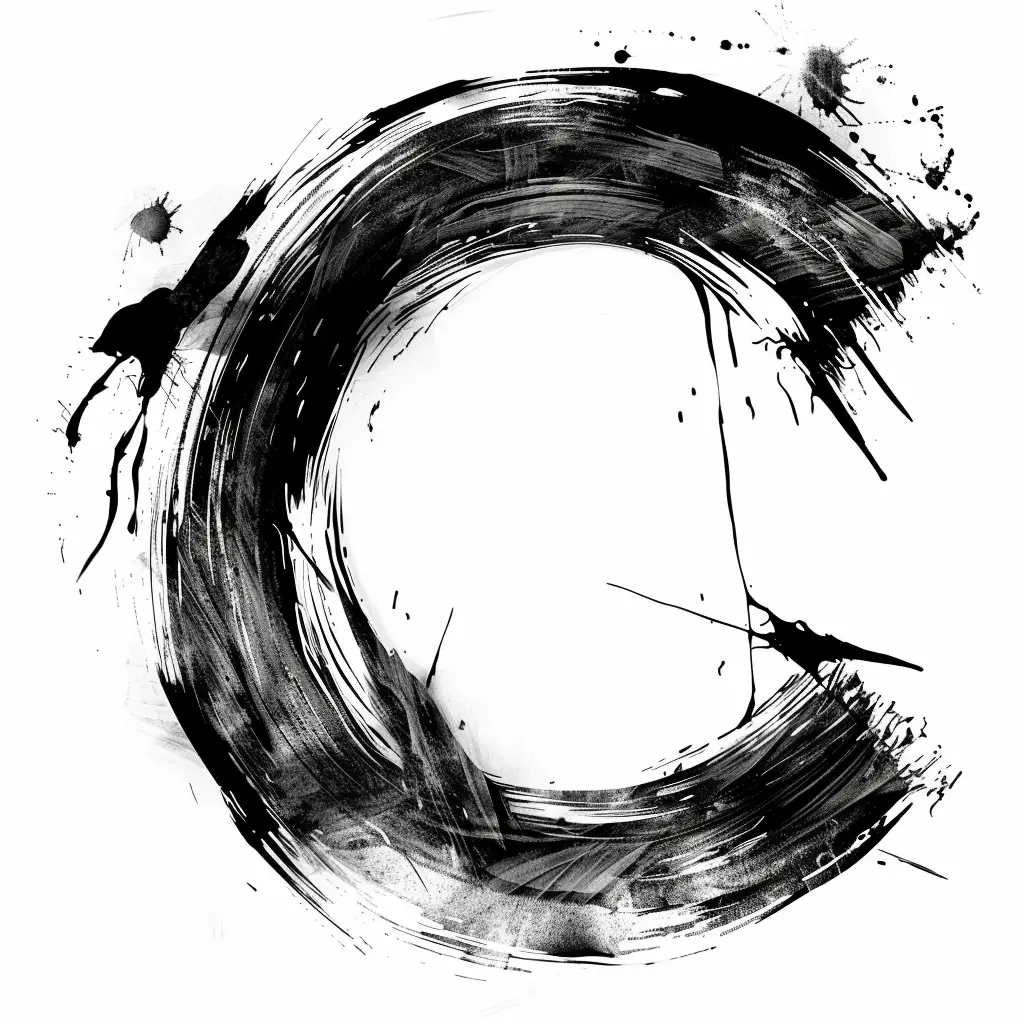
This image features a bold, abstract black circular form with dynamic brushstrokes and splatters, set against a stark white background. The style is expressive and painterly, with varying shades of black creating texture and movement, while small ink splatters and drips add a raw, artistic energy.